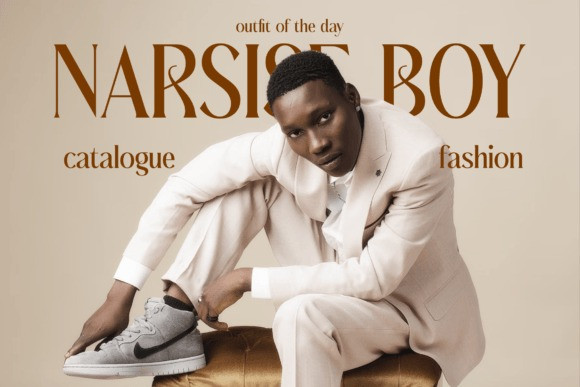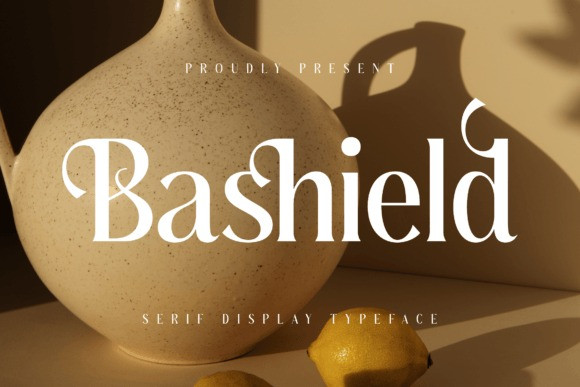
Bashield Font
Bashield Font is a modern and classic serif typeface, with its own unique look. This typeface is perfect for an elegant & luxurious logo, book or movie title design, fashion brand, magazine, clothes, lettering, quotes, and so much more.